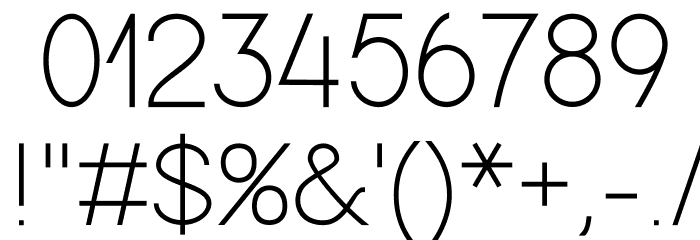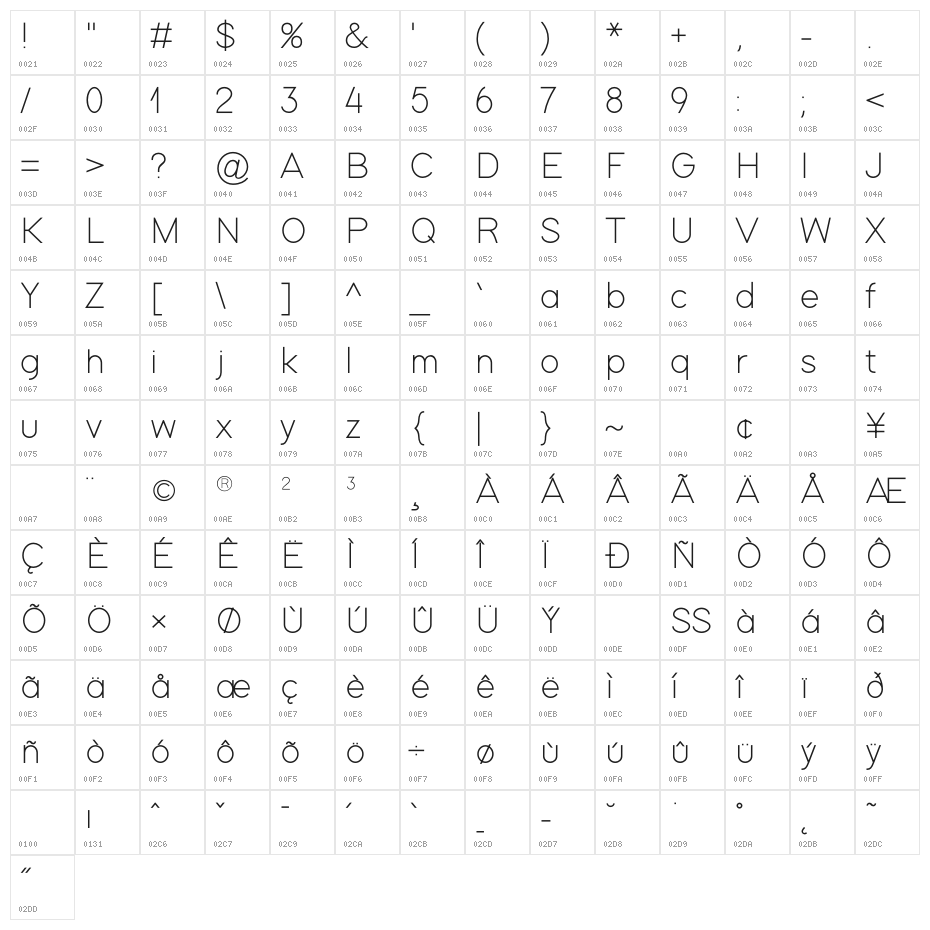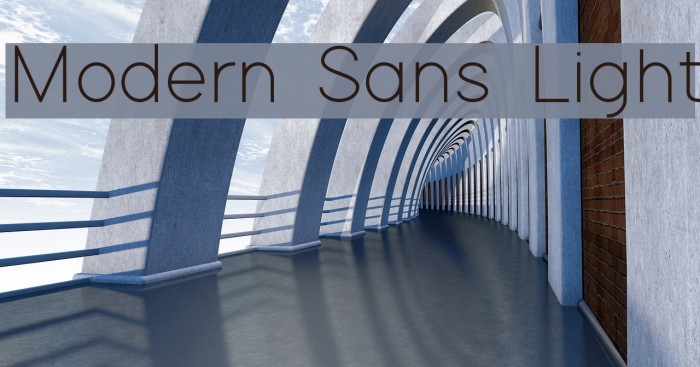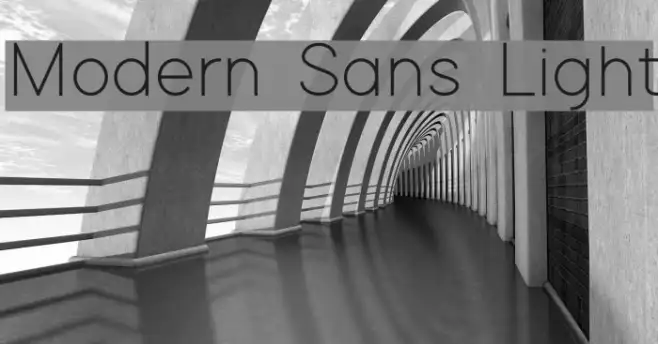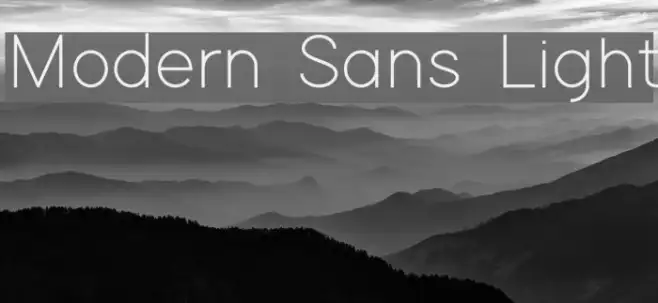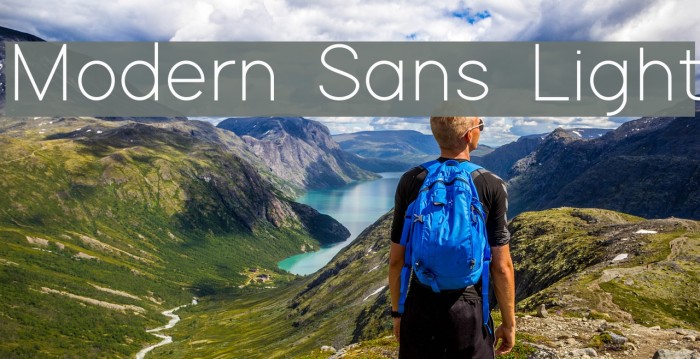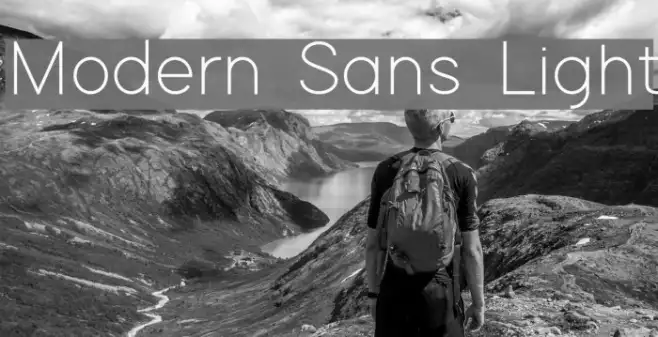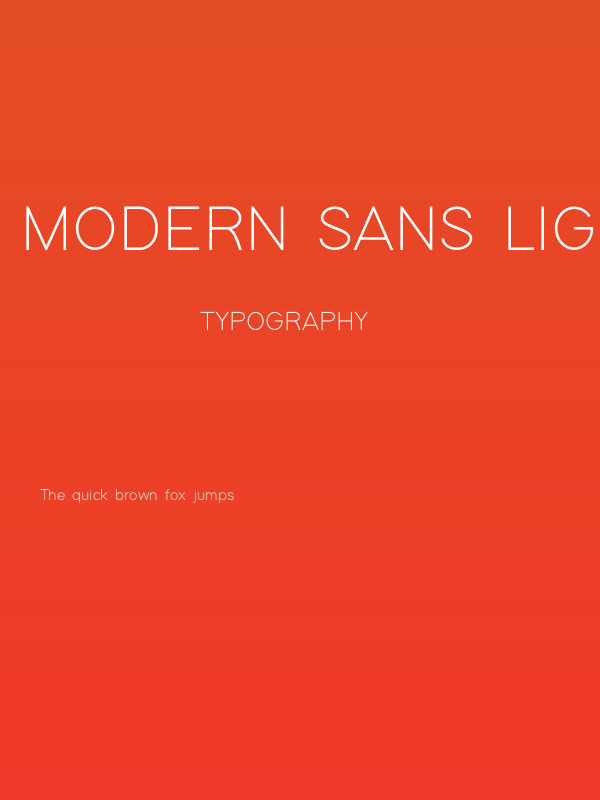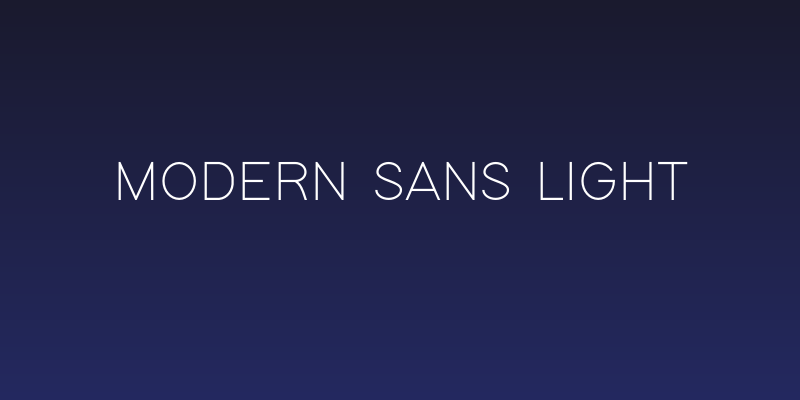
Modern Sans Light Font
Modern Sans Light Description
This font is a modern sans-serif typeface characterized by its clean and minimalistic design. The letters are evenly spaced with a consistent stroke width, giving it a sleek and contemporary appearance. The uppercase and lowercase letters are well-proportioned, with a slight geometric influence that enhances readability. The numerals are clear and distinct, making them suitable for various applications. Special characters are included, maintaining the font's uniform style. This typeface is versatile, suitable for both digital and print media, and works well in various sizes without losing clarity.
| Proposed Projects | Ideal for branding, web design, corporate materials, and editorial layouts. |